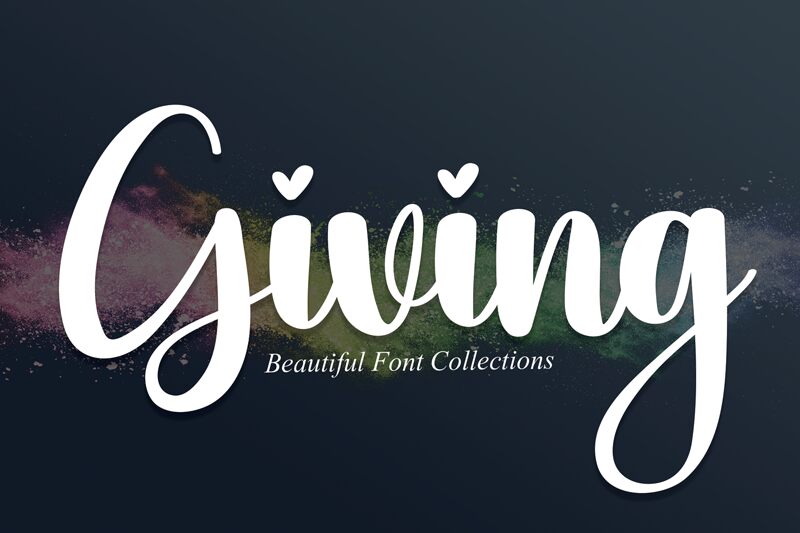
Giving
Giving, a creation by Scratchones, is a semi-bold font that exudes the warmth and personal touch inherent in handwritten text. With its fluid strokes and slight irregularities, this font brings an authentic human element to digital design. The balanced weight of Giving ensures legibility while maintaining a strong visual presence, making it ideal for branding, invitations, and personalized messages where a touch of intimacy is desired.
Its aesthetic charm lies in the delicate balance between elegance and casualness, allowing it to adapt seamlessly across various creative contexts. The handwritten style of Giving suggests approachability and sincerity, perfect for projects aiming to establish a friendly and inviting atmosphere.
Whether deployed on the web or in print, Giving stands out with its distinctive character that can transform any message into an engaging experience. Its versatility is further highlighted in applications ranging from social media graphics to product packaging where a personal connection with the audience is key.